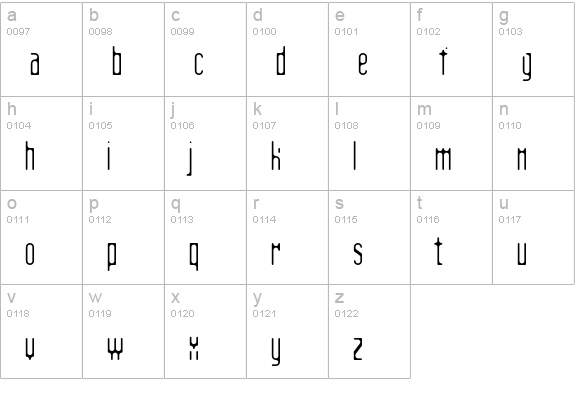
Matica-Subnormal font is a unique and eye-catching typeface that is perfect for adding a touch of creativity to your designs. This font features a modern and sleek design with a hint of playfulness, making it suitable for a wide range of projects. Whether you are working on a poster, logo, or website, Matica-Subnormal font is sure to make your text stand out. The best part about Matica-Subnormal font is that it is completely free to download. You can easily access this font at FontsMarket.com and start using it in your projects right away. With its bold and distinctive style, Matica-Subnormal font is sure to make a statement and leave a lasting impression on your audience. Upgrade your designs with this versatile and stylish font today!